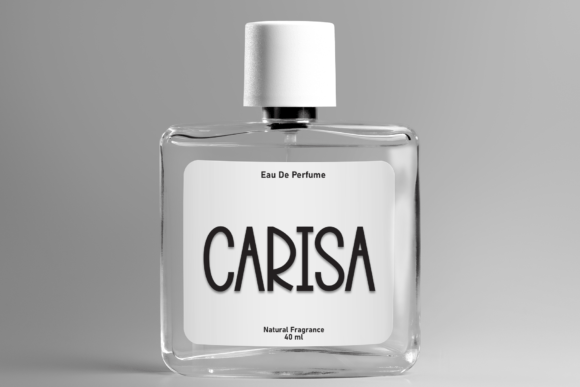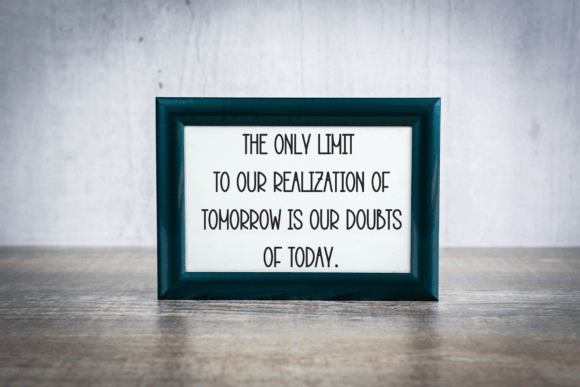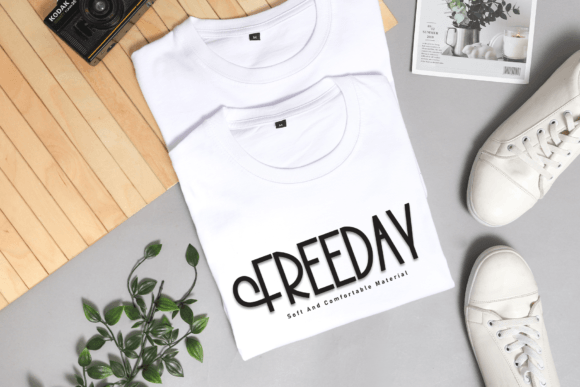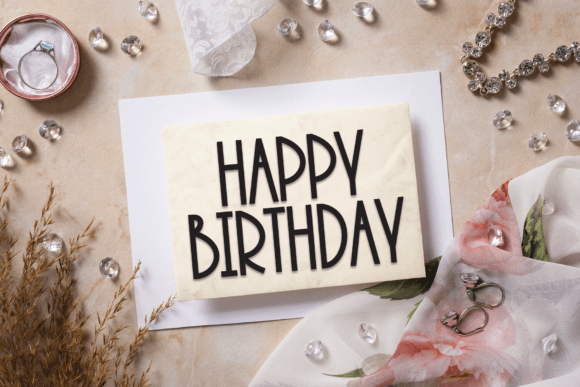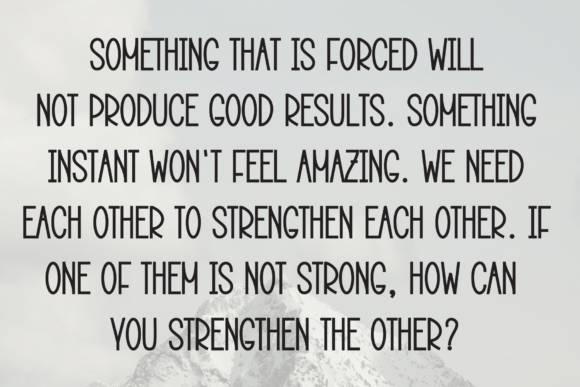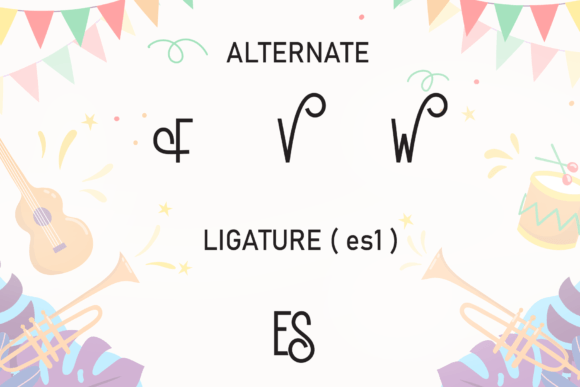
Introducing Festival Font: The Timeless Handwritten Font for Stunning Designs
Are you a designer or crafter looking for a font that can add a touch of elegance and sophistication to your creations? Look no further than Festival Font, a lovely and timeless handwritten font that is perfect for creating eye-catching logos, branding, and quotes.
What Makes Festival Font So Special?
Festival Font is a unique and beautiful font that has a special touch to every letter. Unlike other fonts that can be generic and bland, Festival Font has a distinctive character that will make your design come alive. Whether you’re creating a logo, branding materials, or quotes, Festival Font is the perfect choice for adding a personal touch to your work.
Festival Font is designed with designers and crafters in mind. Its handwritten style gives it a personal and organic feel that is perfect for a wide range of design projects. Whether you’re creating digital or print materials, Festival Font is the perfect choice for adding a touch of elegance and sophistication to your work.
Key Features of Festival Font
- Unique and Beautiful Letters: Every letter in Festival Font has a unique and beautiful touch that will make your design stand out.
- Handwritten Style: Festival Font has a handwritten style that gives it a personal and organic feel.
- Perfect for Logos and Branding: Festival Font is perfect for creating eye-catching logos and branding materials that will make your business stand out.
- Great for Quotes and Typography: Festival Font is also great for creating stunning quotes and typography that will add a touch of elegance to your design.
Why Choose Festival Font?
There are many fonts to choose from, but Festival Font stands out from the rest. Here are just a few reasons why:
- Timeless Design: Festival Font has a timeless design that will never go out of style.
- Versatile: Festival Font is versatile and can be used for a wide range of design projects.
- Easy to Read: Festival Font is easy to read, making it perfect for body text and headlines.
- Unique: Festival Font is a unique font that will make your design stand out from the rest.
How to Use Festival Font
Using Festival Font is easy. Here are just a few tips to get you started:
- Use it for Logos and Branding: Use Festival Font to create eye-catching logos and branding materials that will make your business stand out.
- Use it for Quotes and Typography: Use Festival Font to create stunning quotes and typography that will add a touch of elegance to your design.
- Experiment with Different Sizes and Colors: Experiment with different sizes and colors to find the perfect combination for your design.
Festival Font is a lovely and timeless handwritten font that is perfect for designers and crafters looking to add a touch of elegance and sophistication to their creations. With its unique and beautiful letters, handwritten style, and versatility, Festival Font is the perfect choice for a wide range of design projects. So why wait? Try Festival Font today and see the difference it can make in your design!
Whether you’re a seasoned designer or a crafter just starting out, Festival Font is a great addition to your font collection. Its timeless design and versatility make it a font that you can use for years to come. So go ahead, get creative, and see what amazing designs you can create with Festival Font!